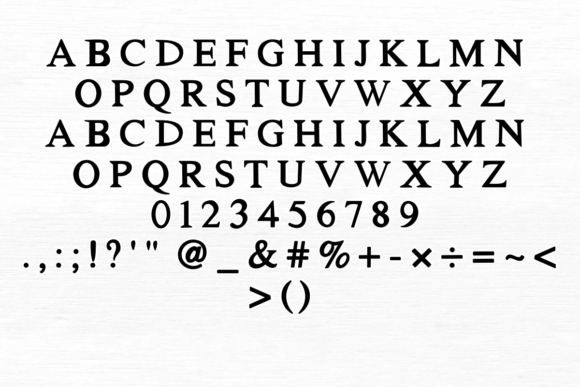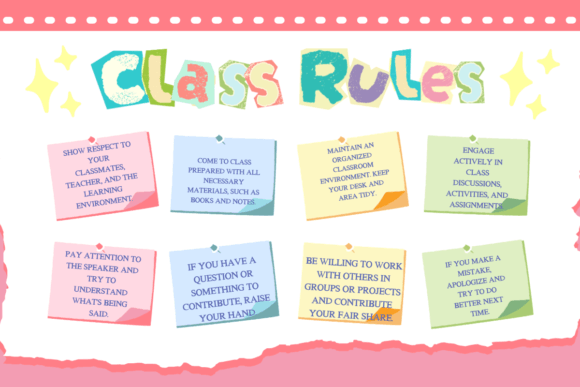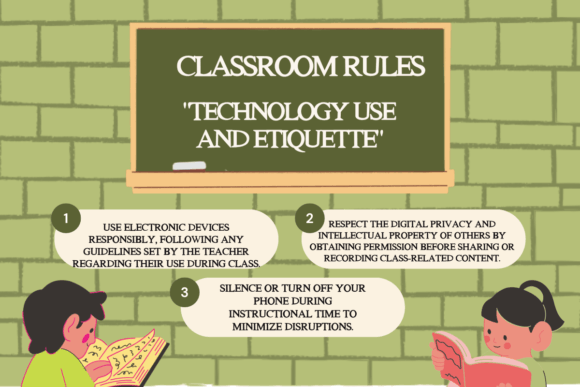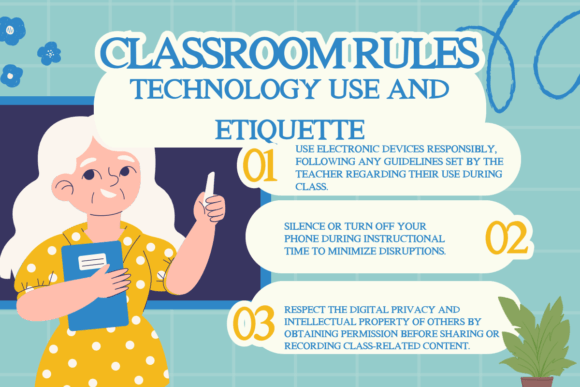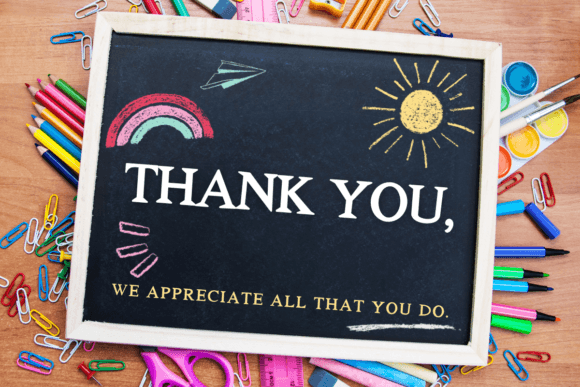
Introducing Classroom Font: The Sweet and Friendly Serif Font for Creative Designs
Are you a designer or crafter looking for a font that can add a touch of warmth and personality to your projects? Look no further than Classroom Font, a sweet and friendly serif font that’s perfect for a wide range of designs. With its natural and unique style, Classroom Font is incredibly versatile and can be used in various creative projects, from educational materials to digital products, and more.
The Characteristics of Classroom Font
Classroom Font is a serif font that boasts a distinctive and charming style. Its letters are carefully crafted to convey a sense of friendliness and approachability, making it perfect for designs that require a personal touch. The font’s natural and unique style allows it to stand out from more traditional fonts, giving your designs a fresh and modern look.
One of the key features of Classroom Font is its excellent readability. The font’s letters are clear and legible, making it easy to read and understand, even at small sizes. This makes it perfect for use in body text, headings, and titles, as well as in digital and print materials.
The Benefits of Using Classroom Font
So, why choose Classroom Font for your designs? Here are just a few benefits of using this versatile font:
- Versatility: Classroom Font is incredibly versatile and can be used in a wide range of designs, from educational materials to digital products, and more.
- Readability: The font’s excellent readability makes it perfect for use in body text, headings, and titles.
- Uniqueness: Classroom Font’s natural and unique style allows it to stand out from more traditional fonts, giving your designs a fresh and modern look.
- Friendliness: The font’s friendly and approachable style makes it perfect for designs that require a personal touch.
How to Use Classroom Font in Your Designs
Classroom Font is incredibly easy to use and can be incorporated into your designs in a variety of ways. Here are a few ideas to get you started:
- Educational Materials: Use Classroom Font to create engaging and interactive educational materials, such as worksheets, activity sheets, and more.
- Digital Products: Use Classroom Font to create digital products, such as printables, planners, and journals.
- Branding and Marketing: Use Classroom Font to create branded materials, such as logos, business cards, and brochures.
- Crafting and Scrapbooking: Use Classroom Font to add a personal touch to your crafting and scrapbooking projects.
Tips and Tricks for Getting the Most Out of Classroom Font
Here are a few tips and tricks for getting the most out of Classroom Font:
- Experiment with different sizes and colors: Classroom Font looks great in a variety of sizes and colors, so don’t be afraid to experiment and find the perfect combination for your design.
- Pair it with other fonts: Classroom Font pairs well with a variety of other fonts, so try pairing it with a sans-serif font for a modern look or a script font for a more elegant look.
- Use it consistently: Use Classroom Font consistently throughout your design to create a cohesive and professional look.